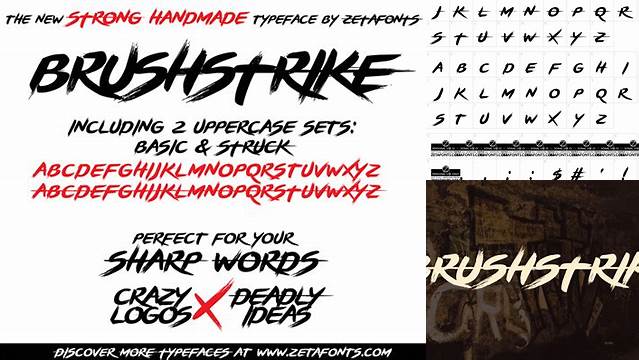
Brushstrike Font Download: Your Guide To Stylish Typography
Are you looking for a cool, stylish font that can add a touch of elegance and flair to your projects? Look no further! The Brushstrike font is a fantastic choice, and the best part is, you can get a brushstrike font free download! This guide will walk you through everything you need to know about this amazing typeface, including where to find it, how to use it, and some creative ideas to spark your imagination. So, let's dive in, shall we?
What is the Brushstrike Font?
First things first, what exactly is the Brushstrike font? Well, folks, it's a beautiful, handwritten-style font that perfectly mimics the look of a real brushstroke. Imagine the graceful curves and dynamic strokes you'd get from a skilled calligrapher, but now, you can apply it to your digital designs. This font is all about conveying a sense of artistry, personality, and a touch of vintage charm. It's ideal for a wide range of projects where you want to make a statement and captivate your audience. The Brushstrike font typically comes with a variety of weights and styles, often including regular, bold, and sometimes even italic variations. This versatility gives you the flexibility to use it in different contexts, from headlines and titles to body text and quotes. The defining characteristic of this font is its natural, organic feel. The strokes are slightly irregular, with varying thicknesses and a sense of movement, which adds a human touch that's often missing in more rigid, digital fonts. This makes it perfect for projects that aim to create a warm, inviting, and authentic aesthetic. The Brushstrike font excels in adding visual interest and personality. It's the kind of font that draws the eye and makes your text stand out, ensuring that your message is not only read but also remembered. When you use it, you're not just choosing a typeface; you're choosing a feeling, a vibe, and a unique way to connect with your audience. So, whether you're designing a logo, creating marketing materials, or crafting social media posts, the Brushstrike font free download option is a great way to elevate your creative projects. Get ready to see your designs come to life with this incredible font!
Creative Ways to Use the Brushstrike Font
Now that you have your Brushstrike font free download and know how to install it, it's time to explore some awesome ways to incorporate it into your projects! This font is incredibly versatile, making it ideal for a wide array of creative endeavors. Let's dive into some ideas to spark your imagination. First off, think about using the Brushstrike font for logos and branding. Its unique, handcrafted feel can help your brand stand out and convey a sense of authenticity and personality. Consider using it for your business name, tagline, or even as a part of your logo design. This will create a memorable and distinct visual identity. The Brushstrike font is perfect for creating eye-catching titles, headlines, and subheadings in your marketing materials. Whether you're crafting flyers, posters, social media graphics, or website banners, this font will instantly grab attention and make your message pop. Play with different sizes, colors, and effects to maximize its impact. For social media, this font can be used to create engaging content. Use it to design quotes, announcements, or even to add a personal touch to your posts. The organic feel of the font resonates well with audiences, making your content more approachable and engaging. Consider using this for Instagram posts, Facebook graphics, or Pinterest pins. Make greeting cards and invitations. If you enjoy creating personalized gifts, the Brushstrike font can be a great way to add a touch of elegance and style. You can use it to design invitations, greeting cards, or even custom artwork for various occasions. This adds a personal and unique touch to your creations. This Brushstrike font free download can be used for designing beautiful website elements. Integrate this font into your website's design. Use it for headings, navigation menus, or other elements to give your website a unique and stylish look. Be sure to use it judiciously to maintain readability while creating a visually appealing design. It can be applied to wedding stationery, such as invitations, save-the-dates, and place cards. The handwritten feel will add a romantic and personalized touch. It’s also excellent for crafting quotes and motivational messages. Create visually appealing graphics to share inspiring words and spread positivity. You can also experiment with combining the Brushstrike font with other fonts and design elements to create unique and visually appealing designs. Try pairing it with a clean, sans-serif font for a balanced look or use it with other decorative elements to add extra flair. With a Brushstrike font free download, the possibilities are endless, so don’t be afraid to let your creativity run wild!
Tips for Using the Brushstrike Font Effectively
Ready to get the most out of your Brushstrike font free download? Awesome! Here are some tips and tricks to help you use the Brushstrike font effectively, ensuring your designs look professional and visually appealing. First, consider readability. While this font is beautiful and stylish, it's essential to ensure that your text remains legible. Don't use it for large blocks of text or in situations where clarity is paramount. Opt for it for headlines, titles, and shorter phrases. Always consider the background and the font's color. The background should be simple and uncluttered, allowing the font to stand out. Avoid using busy or overly patterned backgrounds that might make the text difficult to read. Choose a color for your font that contrasts well with the background to maximize readability. This might involve using lighter text on a darker background or vice versa. Experiment with different sizes and weights. Try various sizes and weights to find the perfect balance for your design. Larger sizes work well for headings, while lighter weights are suitable for delicate details. Also, take a look at the kerning and tracking. Pay attention to the kerning (the space between individual letters) and tracking (the overall spacing of a word or phrase). Adjust these settings as needed to improve the visual appearance and readability of your text. Some design software, such as Adobe Photoshop or Illustrator, allows you to customize these settings. Make sure you’re using the right character sets. Make sure the font you choose supports the special characters you need. Make sure the font offers various weights and styles, such as regular, bold, and italic, to enhance the overall design. Explore different combinations. Don't be afraid to combine the Brushstrike font with other fonts to create visual interest. Pairing it with a clean, sans-serif font for body text can create a balanced and stylish look. Make it unique. When using the Brushstrike font in your designs, consider adding visual elements to make it stand out. Add shadows, drop shadows, outlines, or other effects to give it extra depth and visual appeal. Always preview your work on different devices to ensure it looks great across all platforms. This will help you catch any potential issues and ensure your design is optimized for different screen sizes. By keeping these tips in mind, you'll be able to use your Brushstrike font free download to create stunning designs. Happy designing!